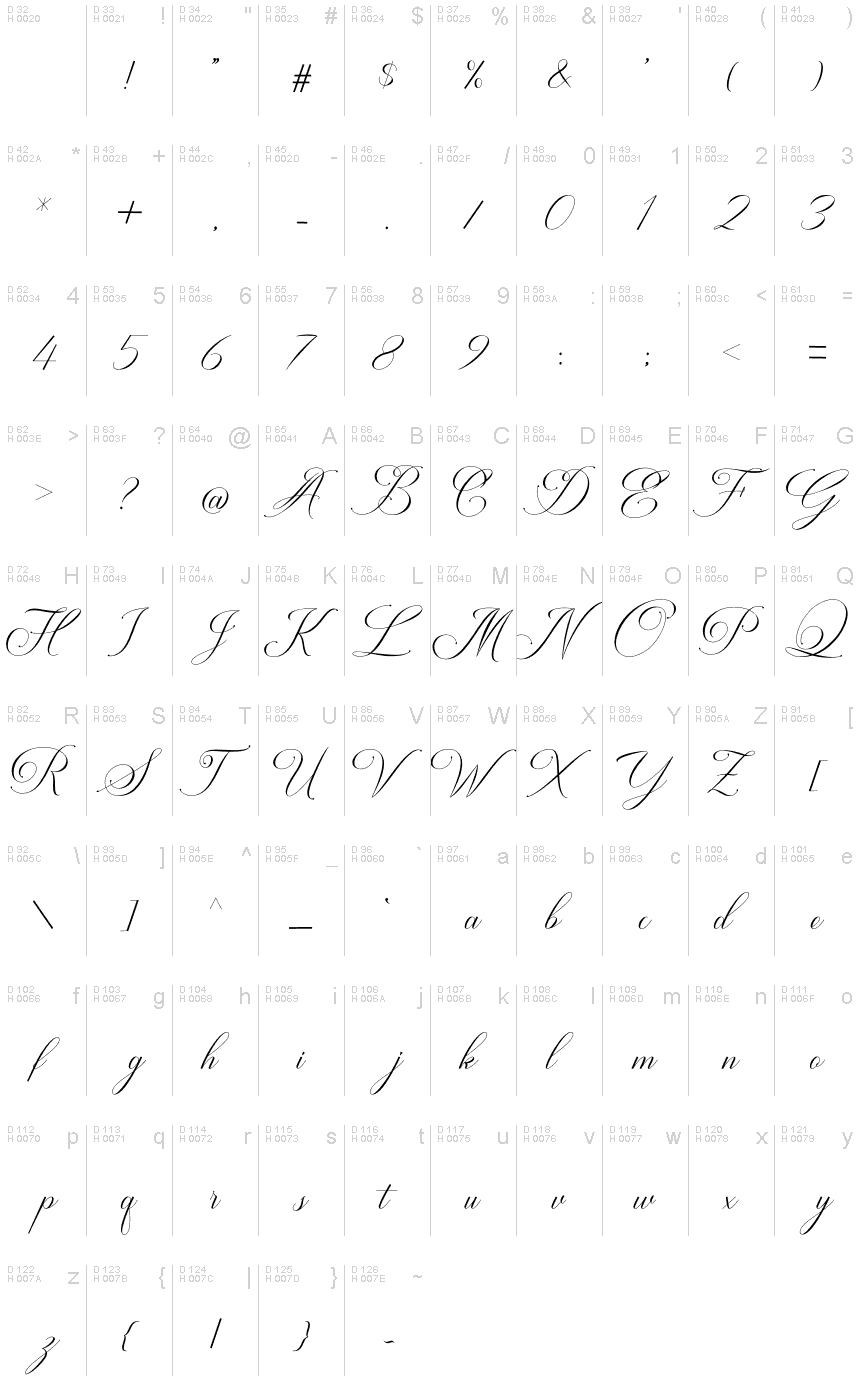
Avalon Chaligraphy
Avalon Chaligraphy font is an elegant calligraphy typeface designed by Typeline Studio.
This charming font will turn any creative idea into a standout.
Perfect for all logos, branding, social media, etc.